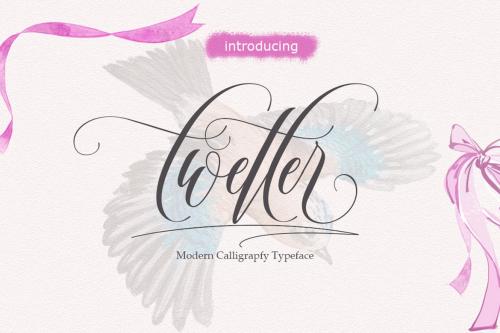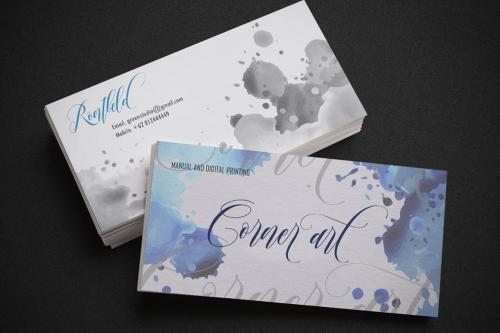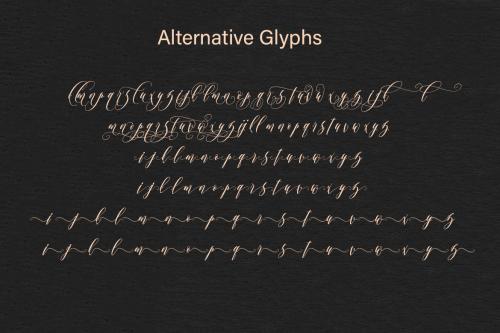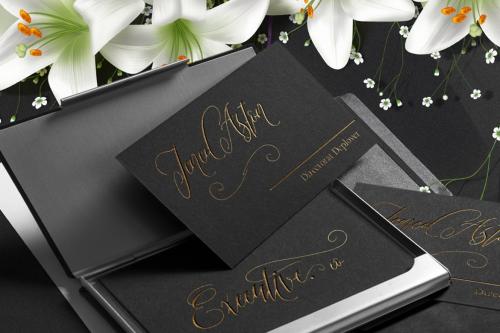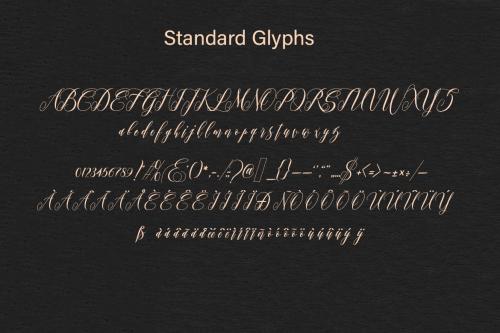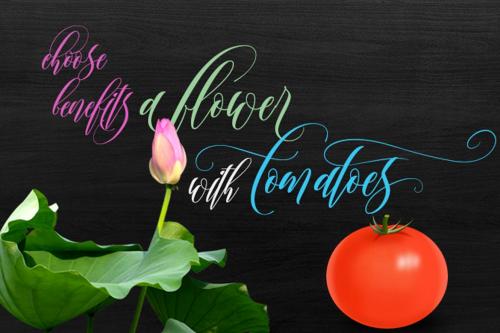
**Twetter** is a font that made the hand by having the character up and down like a dancer. Twetter has a very unique style of calligraphy, it is very suitable for use in the work of modern design.
**The Features of this fonts is:**
*Contextual Alternates
*Standart ligatures
*Discretionary ligatures
*Stylistic Alternates
*Stylistic sets
Languages supported: Breton, Catalan, Czech, Danish, Estonian,French, German, Hungarian, Icelandic, Italian, Romanian, Scottish Gaelic, Slovak, Latvian, Lithuanian, Norwegian, English, Finnish, Polish, Portuguese, Slovenian, Spanish, Swedish, Turkish, Welsh. Basically, all european languages that are based on latin alphabet
Can be used for various purposes.such as headings, logos, wedding invitation, t-shirt, letterhead, lable, news, posters, badges etc. To enable the OpenType Stylistic alternates, you need a program that supports OpenType features such as Adobe Illustrator CS, Adobe Indesign & CorelDraw X6-X7.a font that made the hand by having the character up and down like a dancer. Freestyle has a very unique style of calligraphy, it is very suitable for use in the work of modern design.